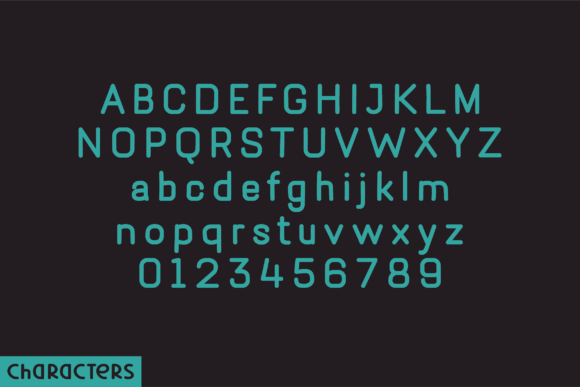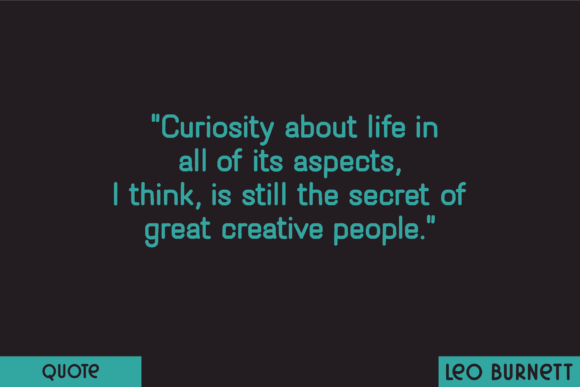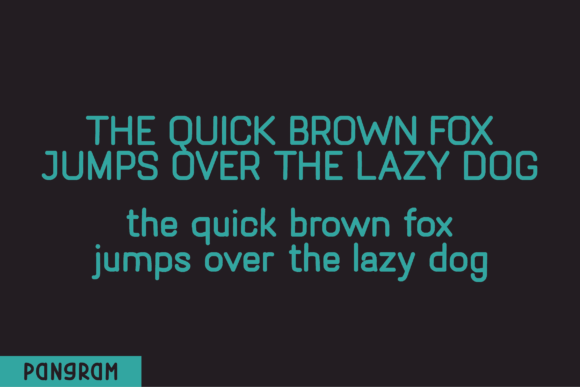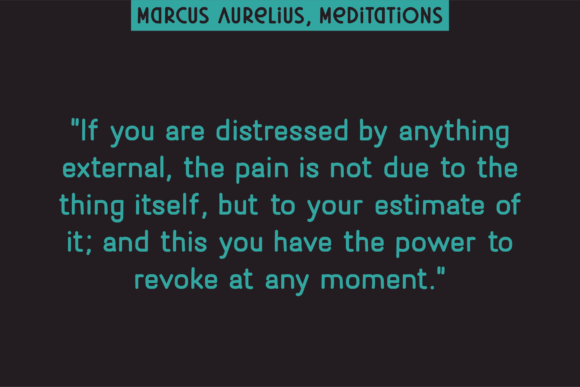
The Buttercup Font: A Bold and Timeless Choice for Creatives
I’ll never forget the time I was working on a project for a client who wanted a bold, eye-catching font to make their brand stand out. I scoured the internet for hours, trying out font after font, but nothing seemed quite right. That was until I stumbled upon the Buttercup font. Its unique sans-serif design and classic touch immediately caught my attention, and I knew I had found the perfect fit. In this article, I’ll share my experience with the Buttercup font, its features, and how to make the most of it in your designs.
An Honest Review of Buttercup Font
What I Love About Buttercup Font
- ✨ Bold and eye-catching: The Buttercup font is perfect for making a statement with your designs. Its bold and unique sans-serif design is sure to grab attention.
- ✅ Versatile: This font is suitable for a wide range of design projects, from quotes and notes to tees, logos, and social media graphics.
- 💡 Classic touch: The Buttercup font has a timeless quality that makes it perfect for designs that require a classic, sophisticated look.
While the Buttercup font is an excellent choice for many design projects, there are a few things to keep in mind:
- 🤔 Limited use in body text: Due to its bold nature, the Buttercup font may not be the best choice for large blocks of body text. It’s better suited for headings, titles, and short phrases.
- ⚠️ Glyph limitations: As with any font, there may be limitations to the glyphs and special characters available in the Buttercup font. Be sure to check the font’s specifications before using it in your design.
The Story Behind Buttercup Font
The Buttercup font was designed with the goal of creating a bold and unique sans-serif font that would add a classic touch to any design project. The designer drew inspiration from traditional typography and modern design trends to create a font that’s both timeless and versatile.
| Font Name | Buttercup Font |
| Author | Hanna Bie |
Q: What is the Buttercup font best used for?
A: The Buttercup font is best used for designs that require a bold and eye-catching font, such as quotes, notes, tees, logos, and social media graphics.
Q: Is the Buttercup font suitable for body text?
A: While the Buttercup font can be used for body text, it’s better suited for headings, titles, and short phrases due to its bold nature.
Q: Is the Buttercup font available in different weights and styles?
A: The availability of different weights and styles may vary depending on the font package or source. Be sure to check the font’s specifications before using it in your design.